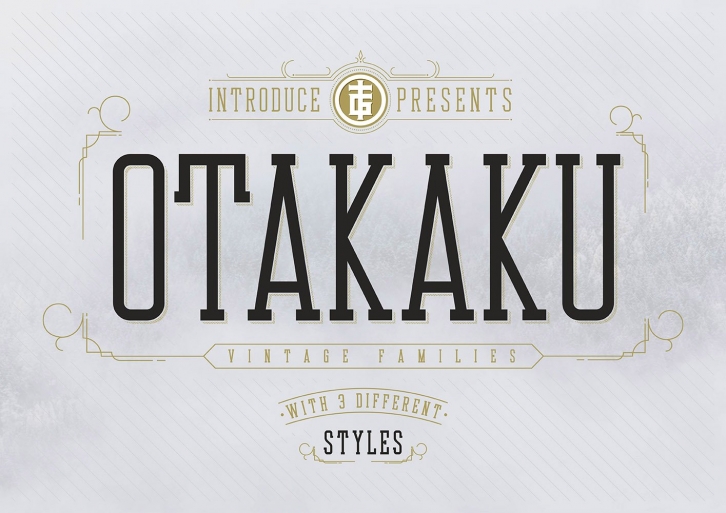
Otakaku is a typeface that is inspired by vintage-style lettering which is great for both headlines and body content copy. The three families in this typeface - regular, bold, and vintage; adds perfection to Otakaku for custom wedding and event invites, quotes on posters, vintage-themed apparel, and almost anything else you can imagine.